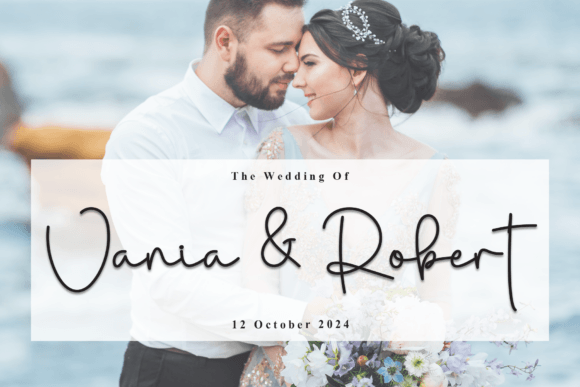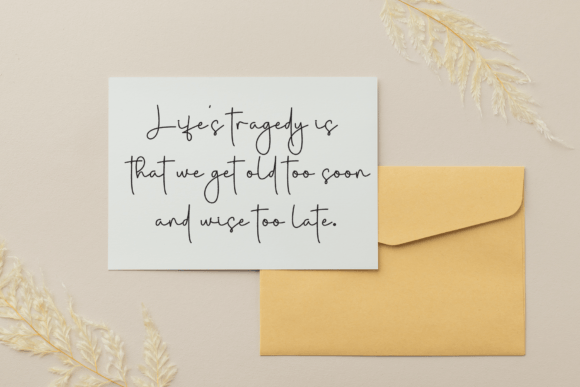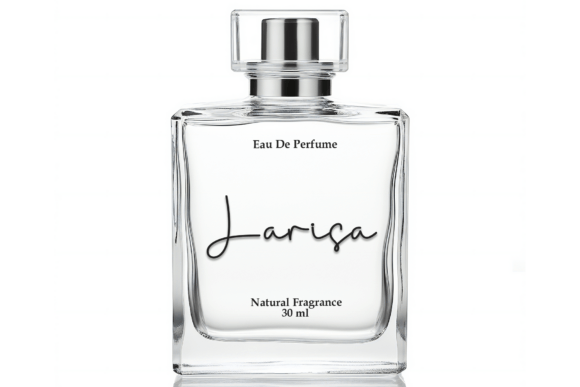
Christmas Wonderful Font: Free Download Now
Introduction to Christmas Wonderful Font
Christmas Wonderful is a playful and cozy handwritten font with a slightly messy style, perfect for adding charm to holiday cards, festive decorations, and cheerful designs.
Key Features of Christmas Wonderful Font
Why Choose Christmas Wonderful Font?